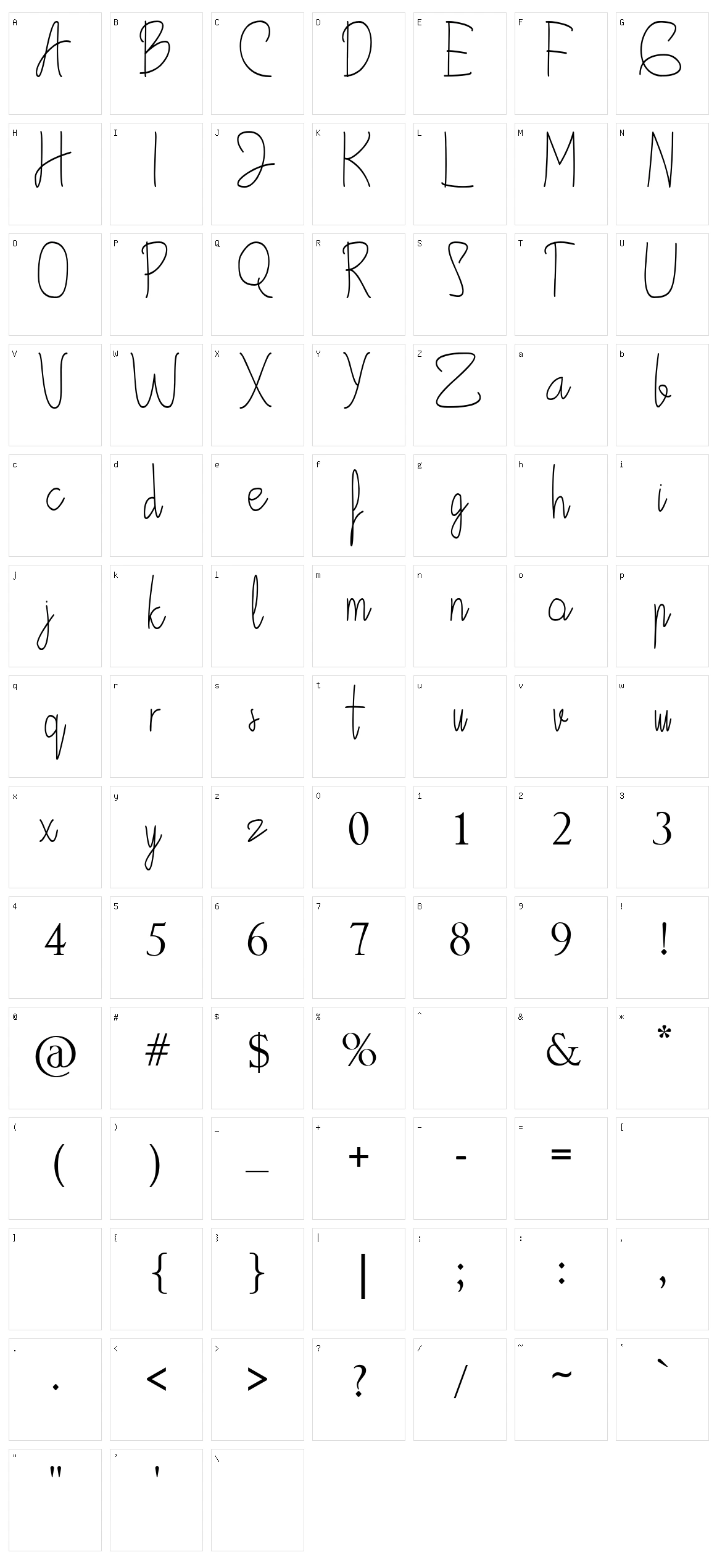
The free font Awali is carefully designed by Just Lett, showcasing a thoughtful balance of creativity and usability and falls under the Script font style. When you download the ZIP file, it contains only 23.02 KB of font files, making it lightweight and quick to download. Please review the license details below to understand permitted usage and distribution rights. If license information is not available, we recommend using this font for personal projects only or contacting the author directly for commercial usage permissions.